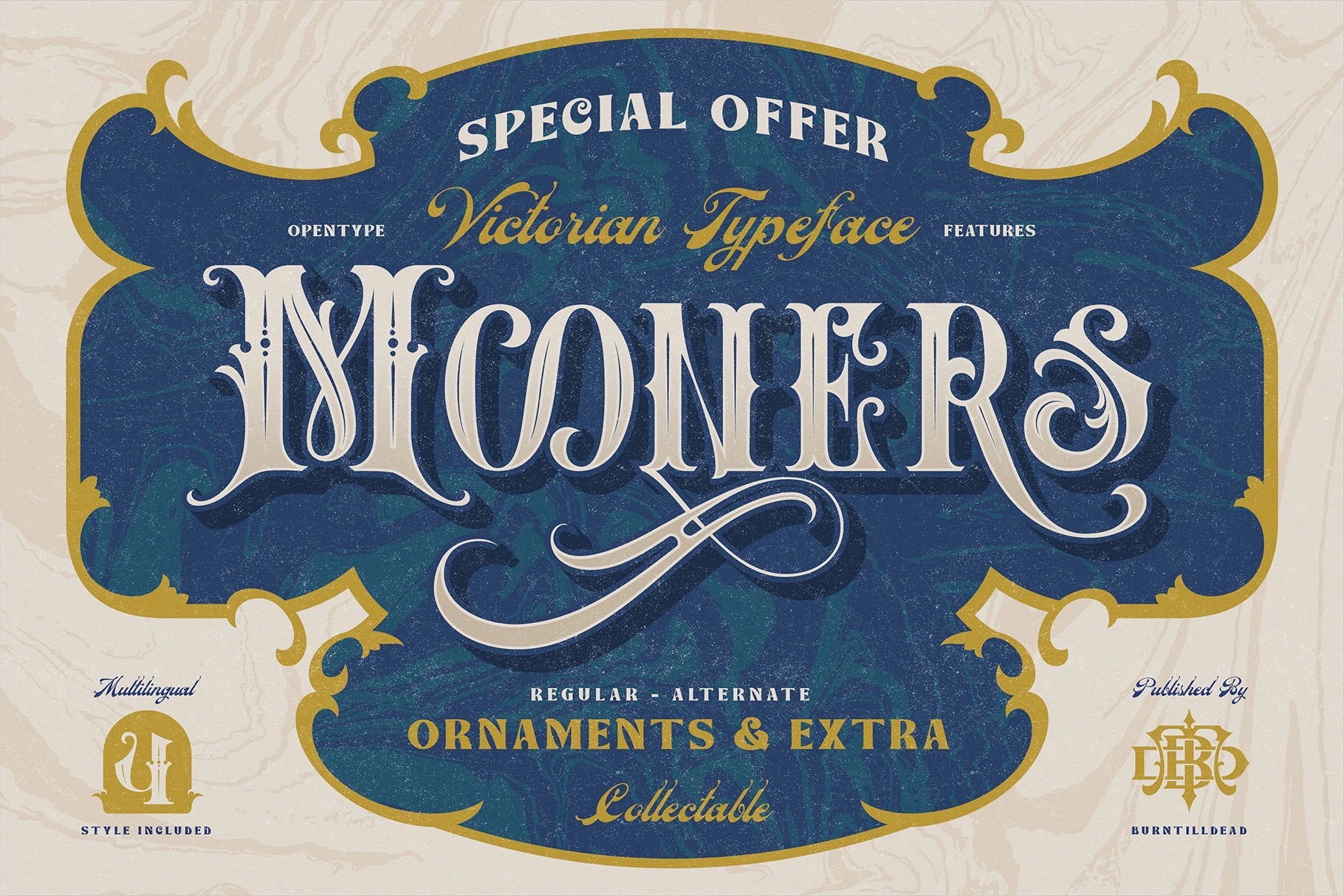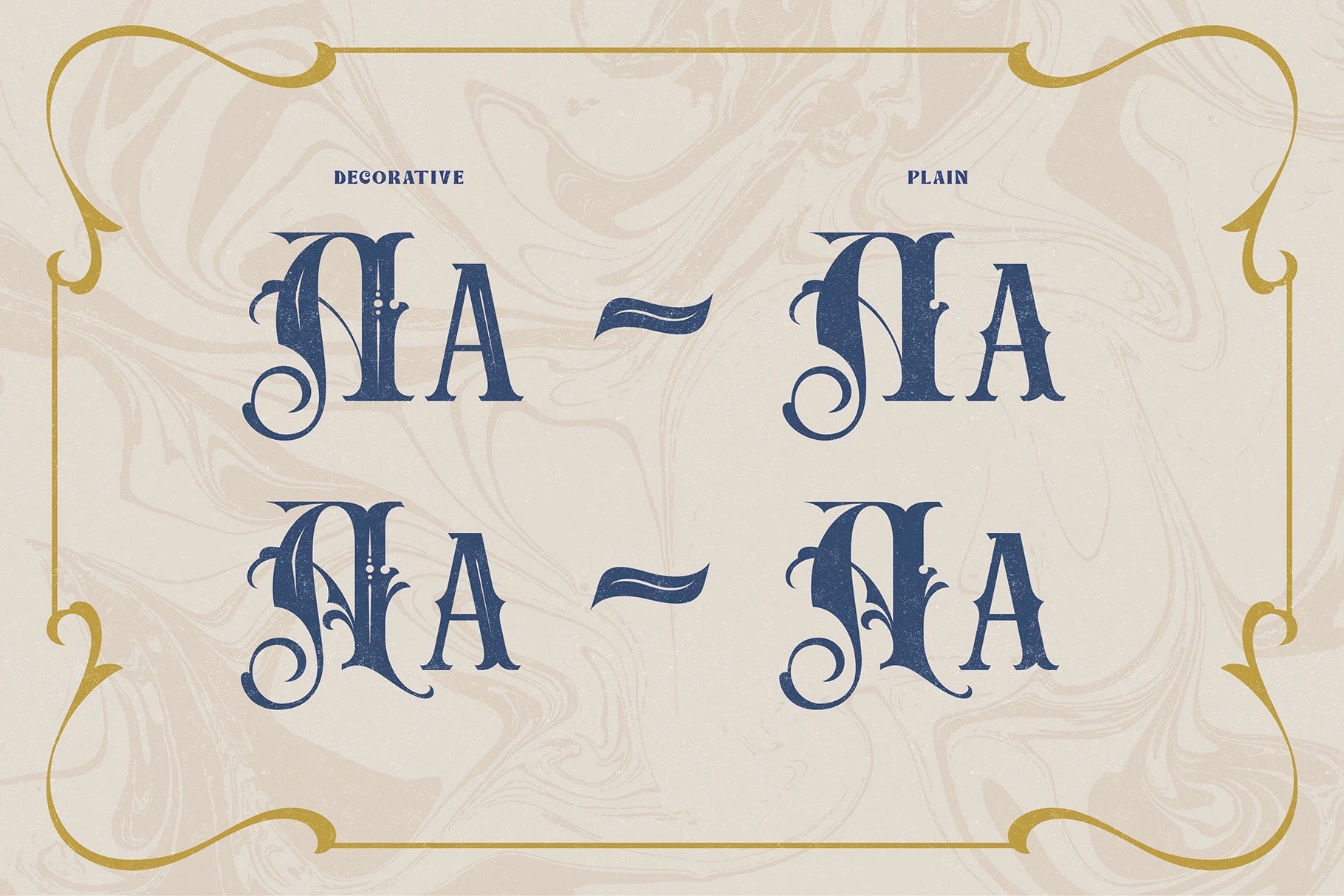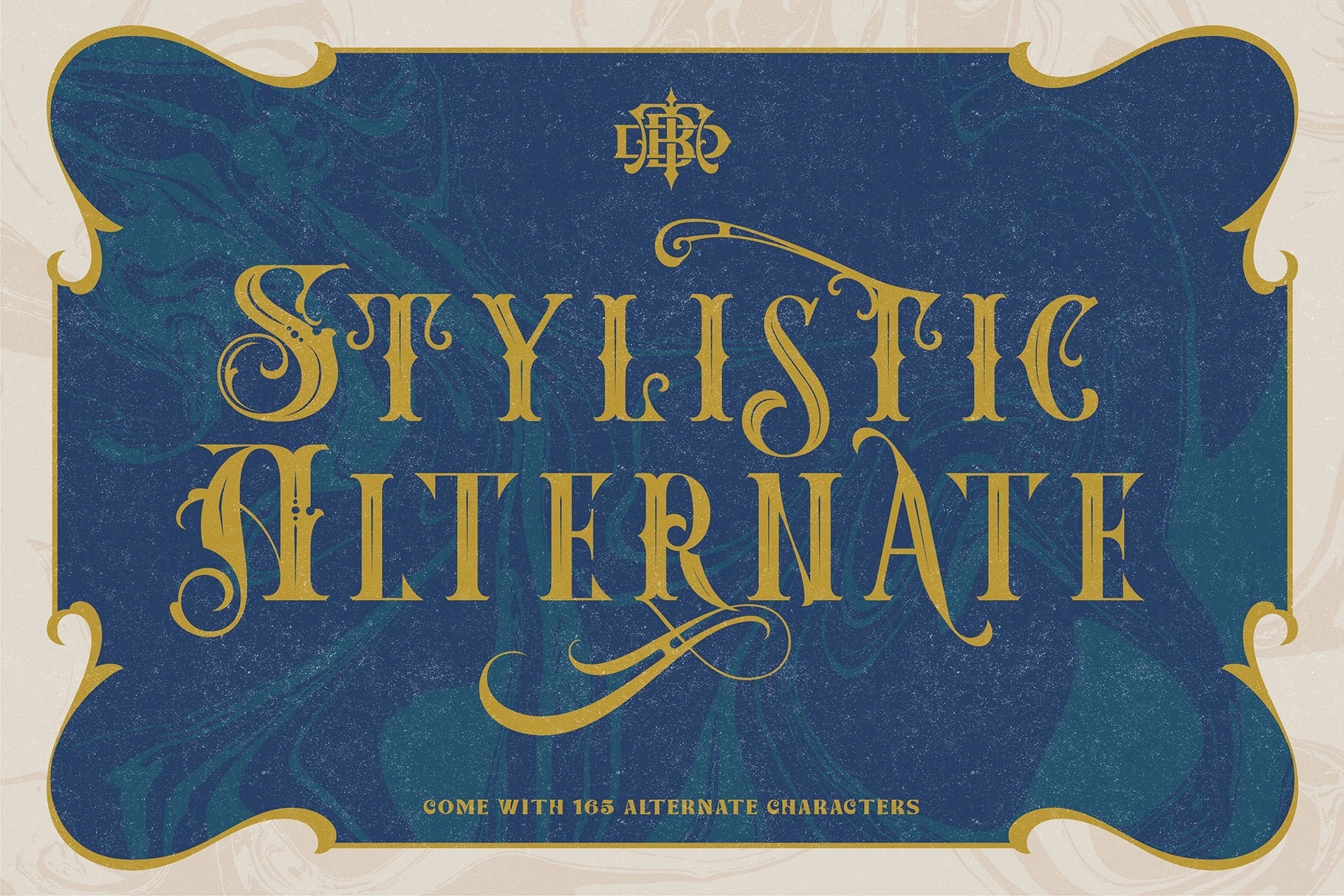
Make your design as a time machine with “Mooners” typeface. Inspired by the decorative victorian advertising poster, Mooners came to make make your document, poster, logo, etc… perfectly have classical vibes.
Very victorian, ornamental, decorative and classical. A solid combination that can bring your design, logo, document, website, etc. back to 1800 decade. Multilingual fonts-family and playful one with 165 alternate characters.